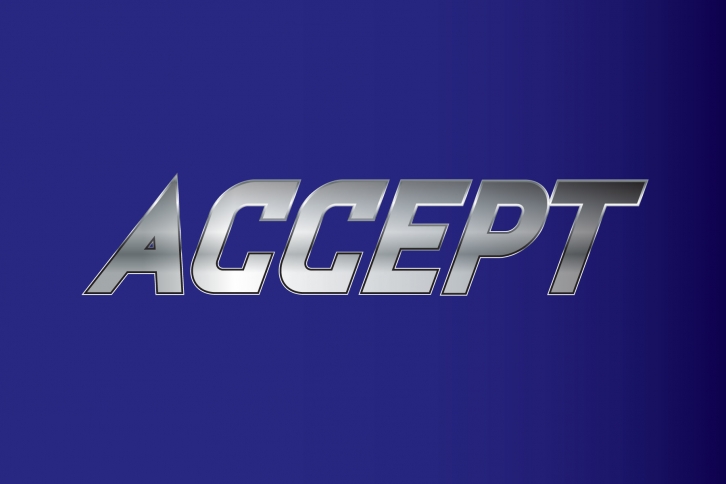
Accept is a cool, bold and futuristic display font. It works great on any design related to speed, power or both. Add it confidently to your projects, and you will love the results.